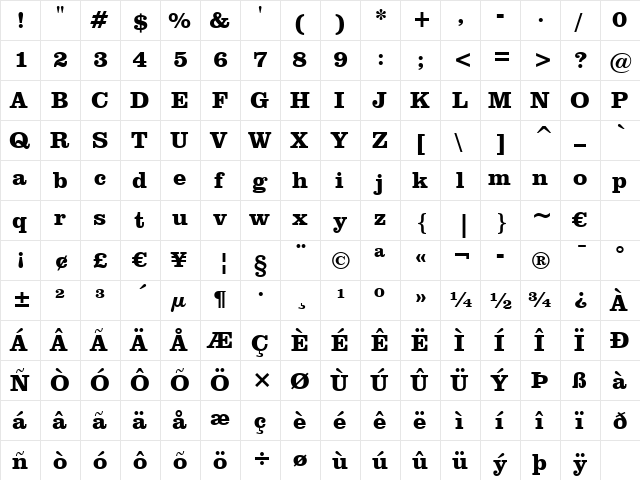
Clarendon BT Bold
Design Context for Clarendon BT Typeface
Clarendon BT features prominent, blocky serifs that give it a confident, grounded presence — equally at home in editorial settings and bold branding work. Its bold stroke weight gives it real presence on the page.
Suited to magazines, political campaign materials, bold packaging, and any setting where authority matters.
Pro Tip: Use Clarendon BT for headlines and subheadings where its slab serifs can make an impression. It also holds up well in mid-size body copy thanks to its sturdy construction.